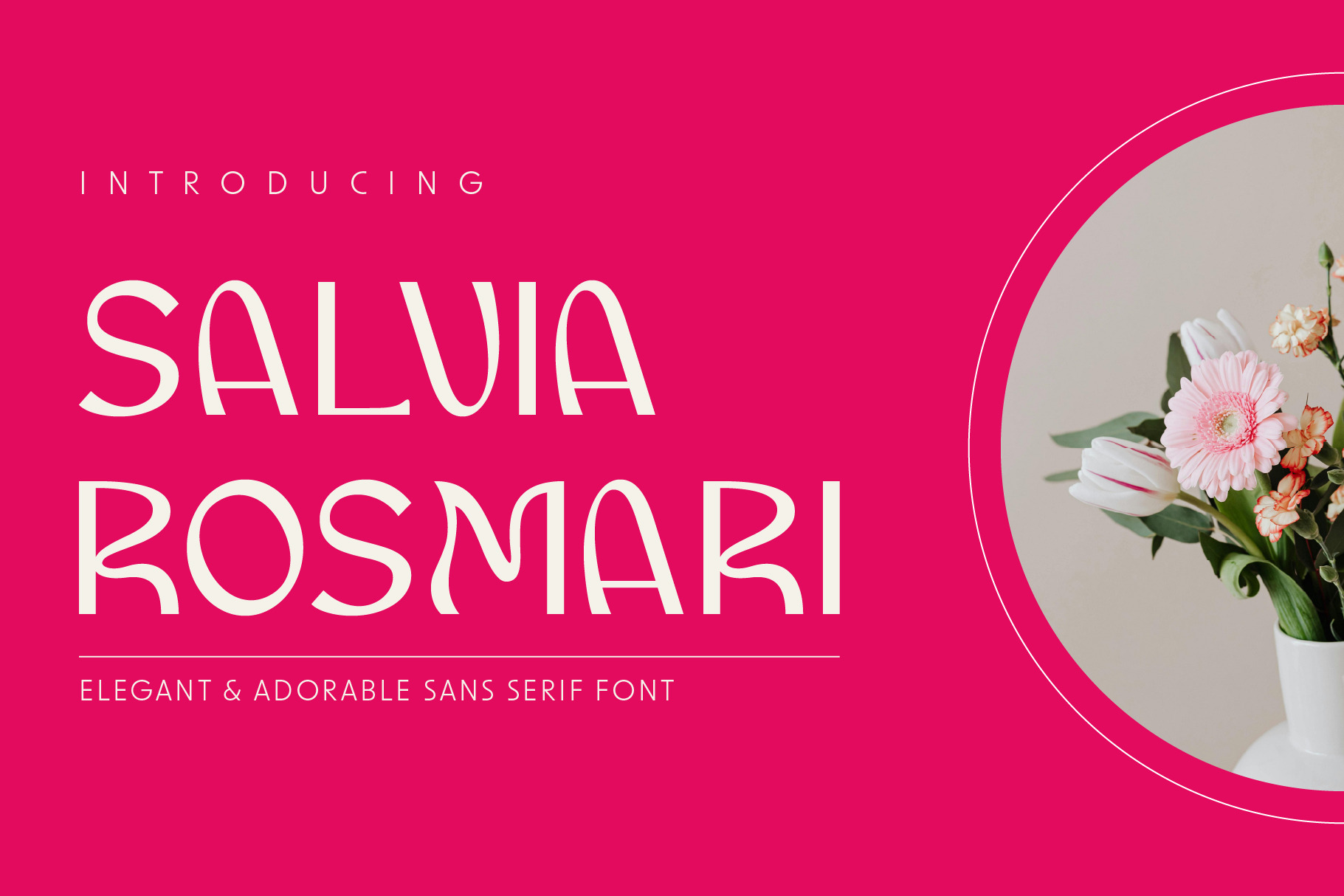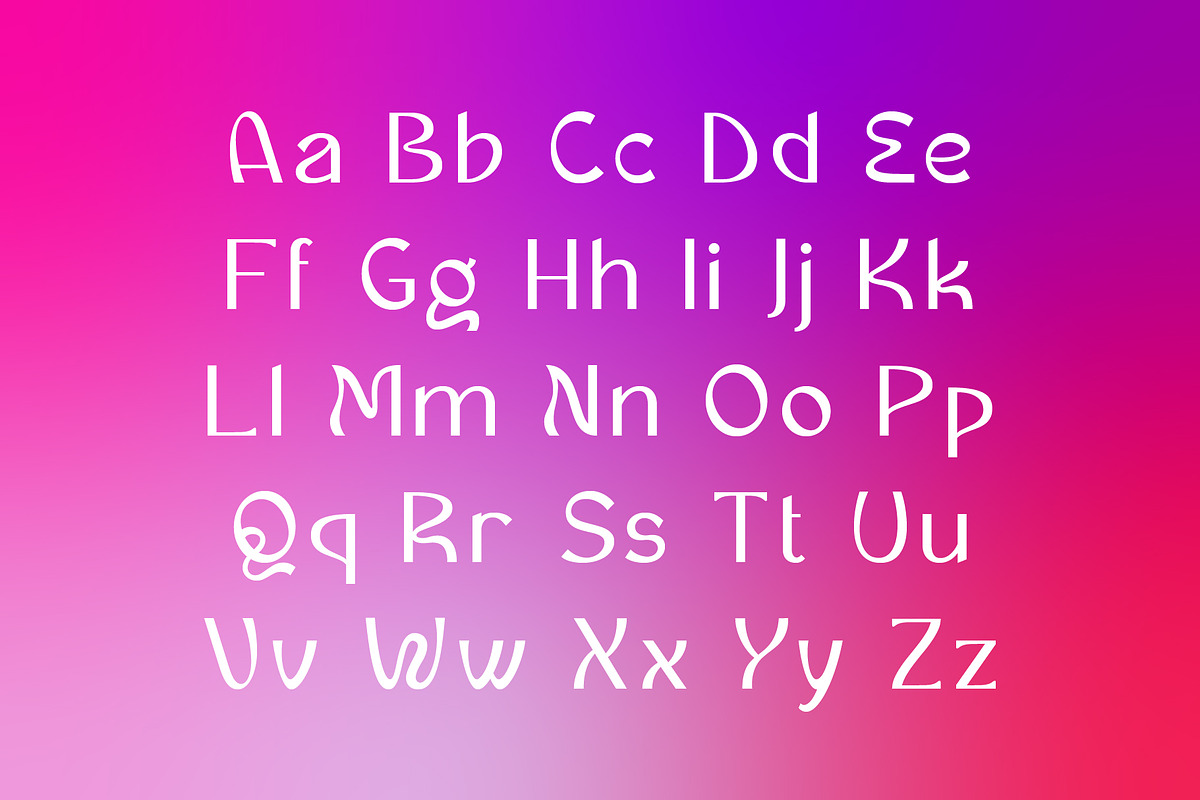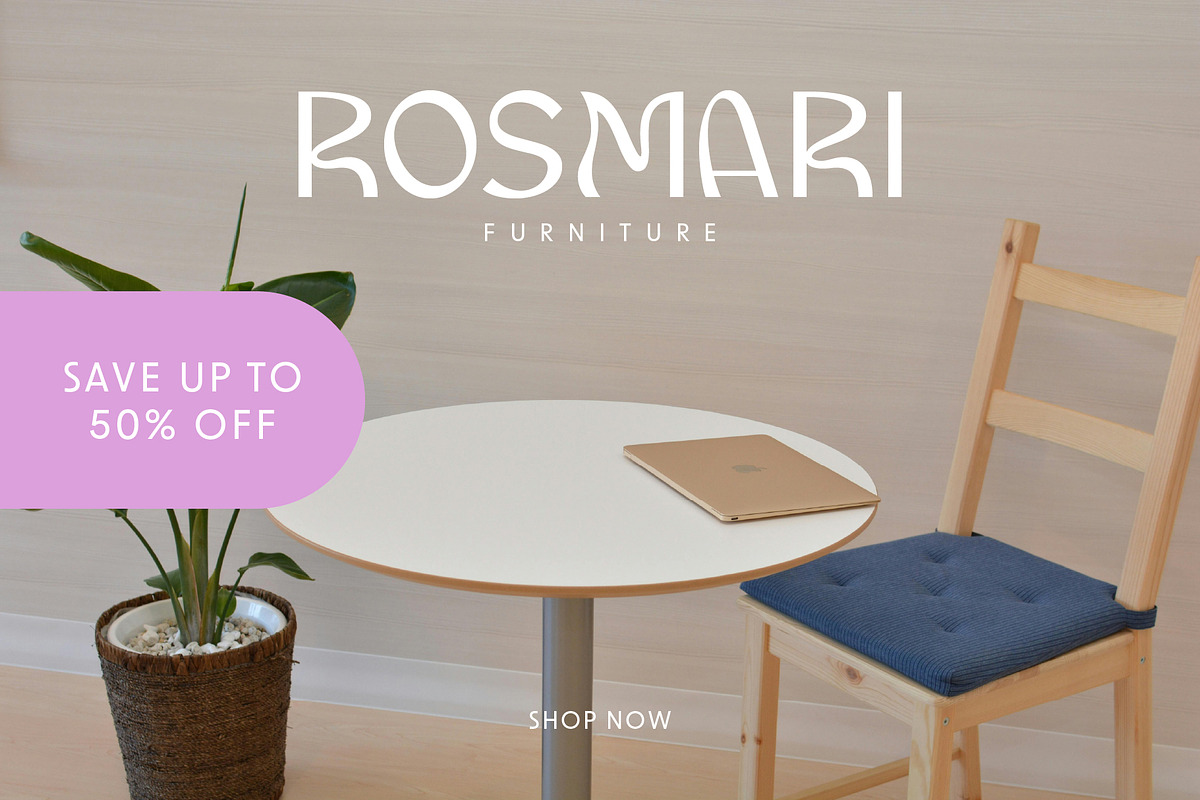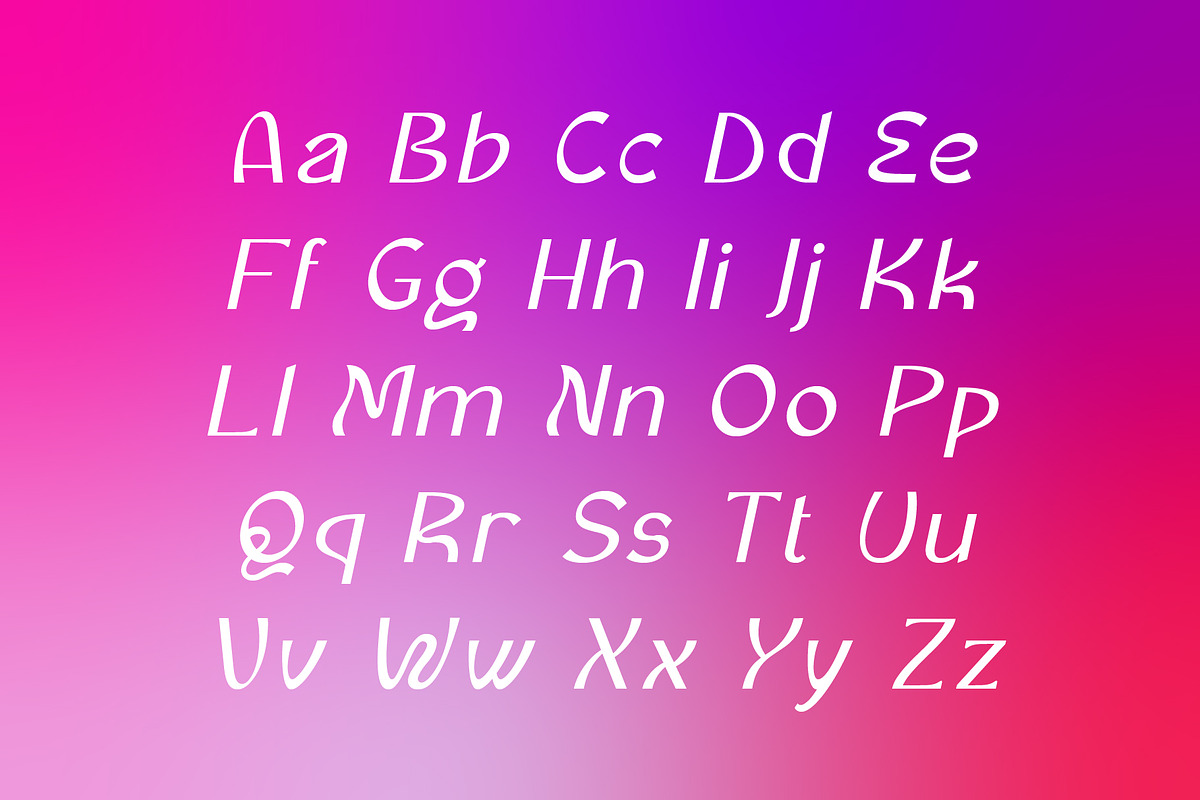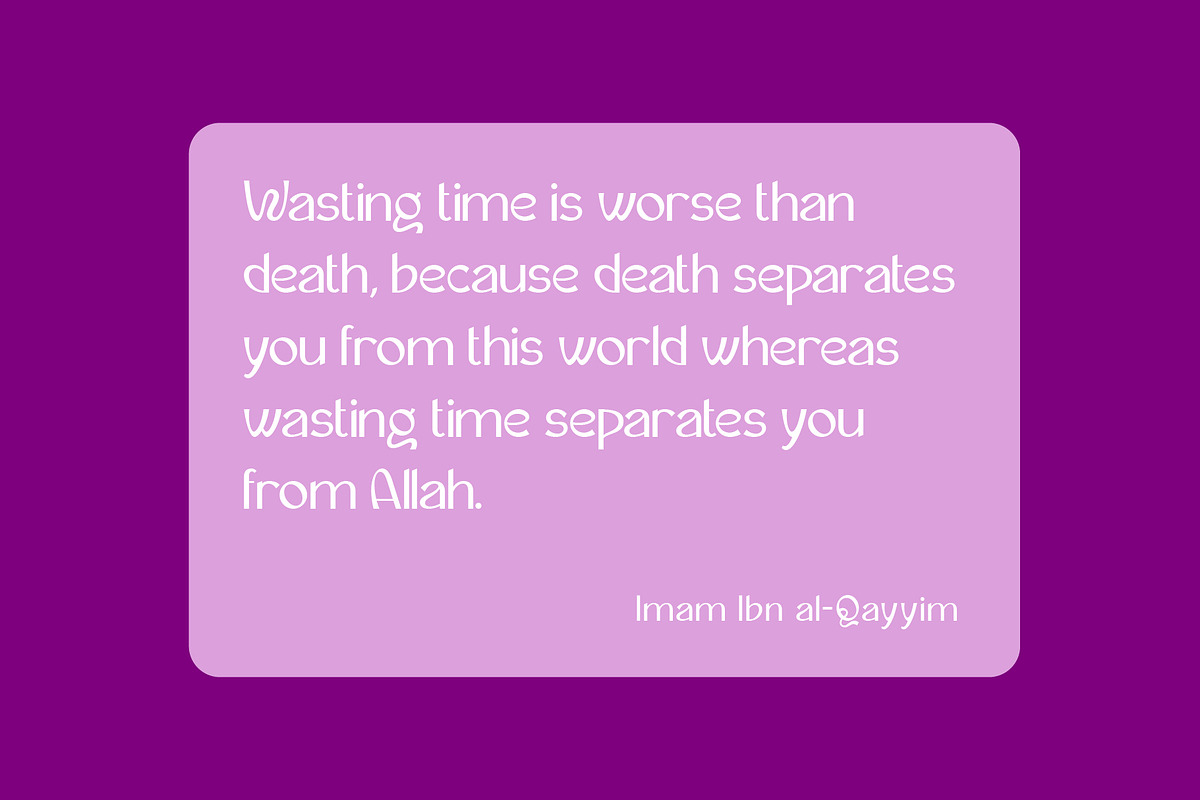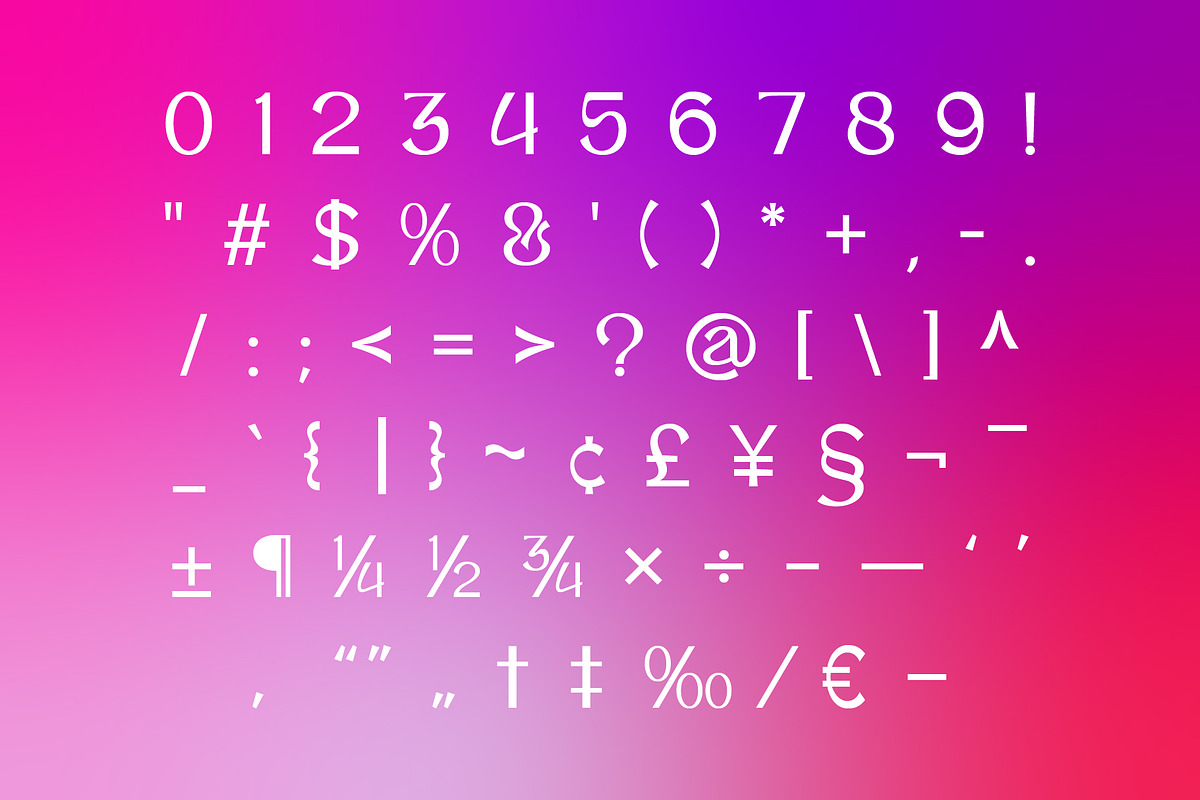
Salvia Rosmari - Wavy Sans Font
Introducing Salvia Rosmari, a handcrafted font that brings a touch of the psychedelic era with a modern and elegant twist. Its slightly wavy lines are inspired by the free-spirited style of the 60s, yet it maintains a clean and sophisticated look. This unique blend makes Salvia Rosmari perfect for a variety of creative projects. Whether you’re designing fashion magazines, greeting cards, wedding invitations, or inspirational quotes, this font adds a distinctive flair.
Salvia Rosmari is not just about aesthetics; it’s also highly functional. The font includes a full set of uppercase and lowercase letters, numbers, and punctuation, along with an italic style for every character. This versatility ensures that your designs will stand out, no matter the medium. From beauty brand logos to editorial layouts, Salvia Rosmari adapts seamlessly to your needs.